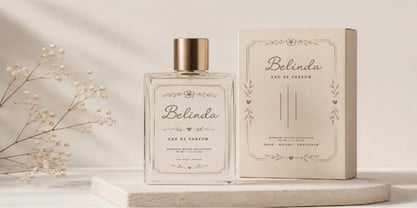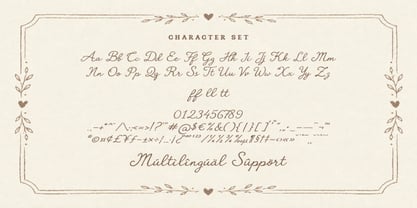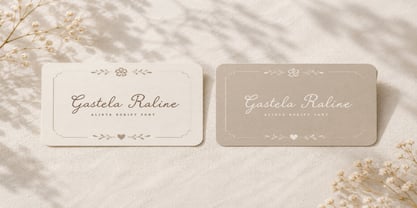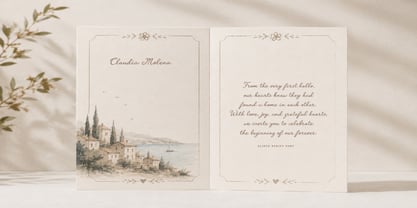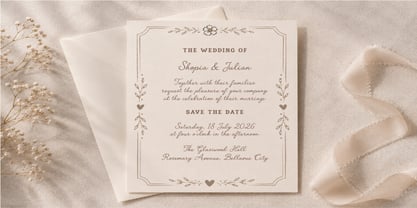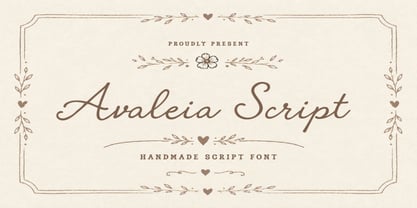
Avaleia Script
Introducing Avaleia Script, a gracefully crafted handmade font that brings a warm, personal, and organic touch to your creative projects. Designed with a clean monoline weight and fluid cursive strokes, this font beautifully mimics authentic handwriting with an elegant, modern twist.
Avaleia Script features a gentle, rhythmic flow that makes it incredibly versatile. Whether you are designing high-end branding materials or cozy DIY crafts, its natural charm adds an instant aesthetic appeal.
Features:
- Standard glyphs
- Ligatures
- Punctuation
- Multilingual support.